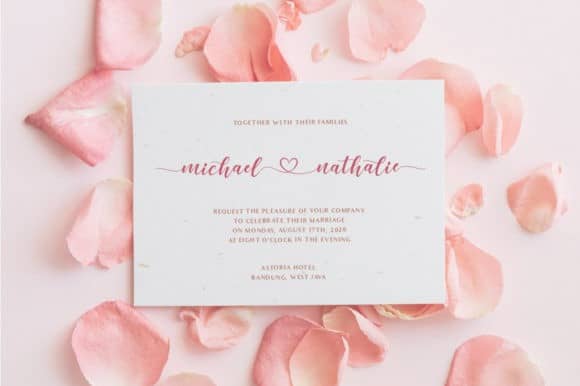
Dear Love Calligraphy Font
Dear Love Calligraphy Font is an adorable and cute hand-drawn font with full set of uppercase and lowercase letters, swash alternates, ligatures, multilingual symbols, numerals and punctuation. It is PUA encoded which means you can access all of the glyphs and swashes with ease! It features a varying baseline, smooth lines, gorgeous glyphs and stunning alternates. It maintains its classy calligraphic influences while feeling contemporary and fresh. Fall in love with this font and bring your projects to the highest levels!
Dear Love Calligraphy Font is a beautiful calligraphy font perfect for crafting, branding, invitation, stationery, wedding designs, social media posts, advertisements, product packaging, product designs, label, photography, watermark, special events or anything.